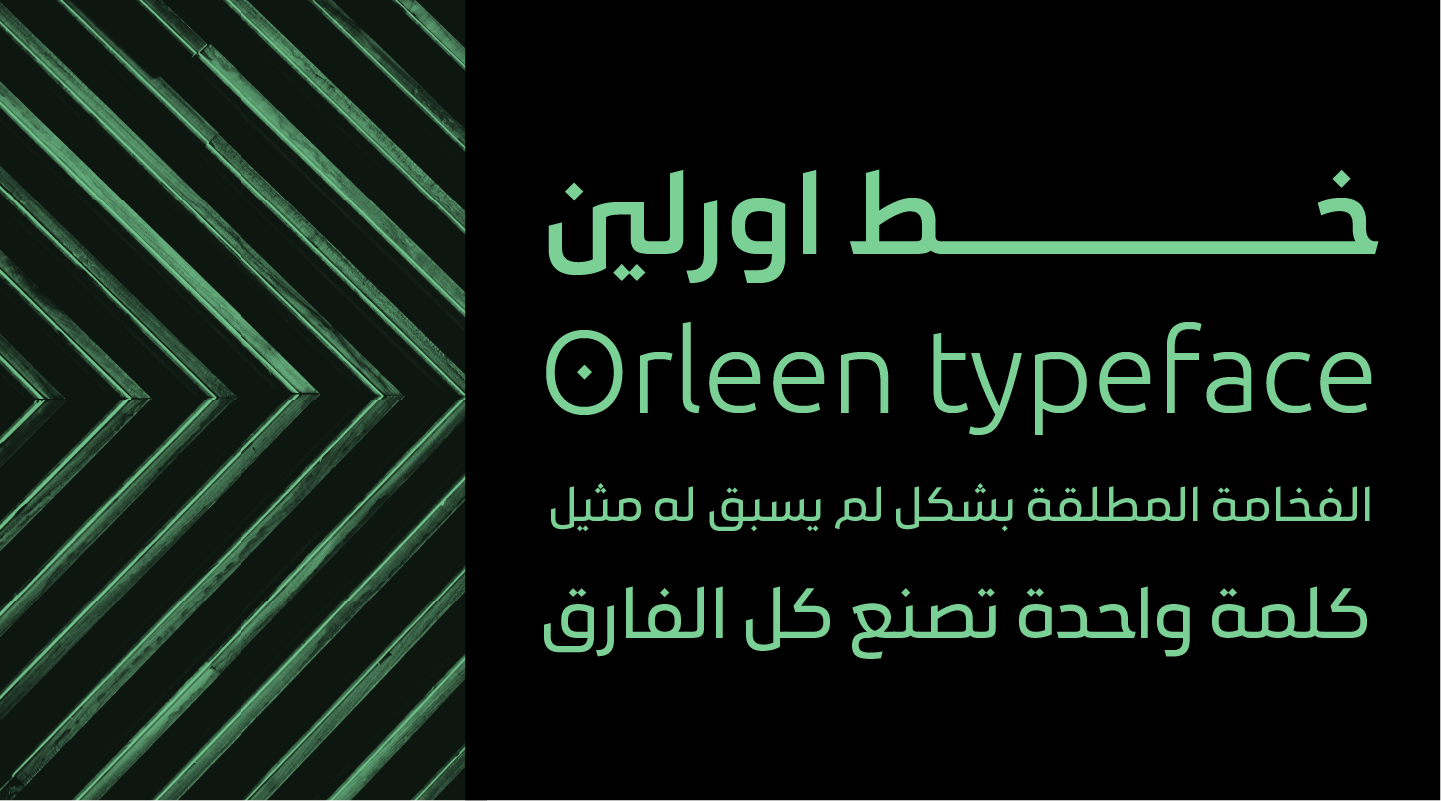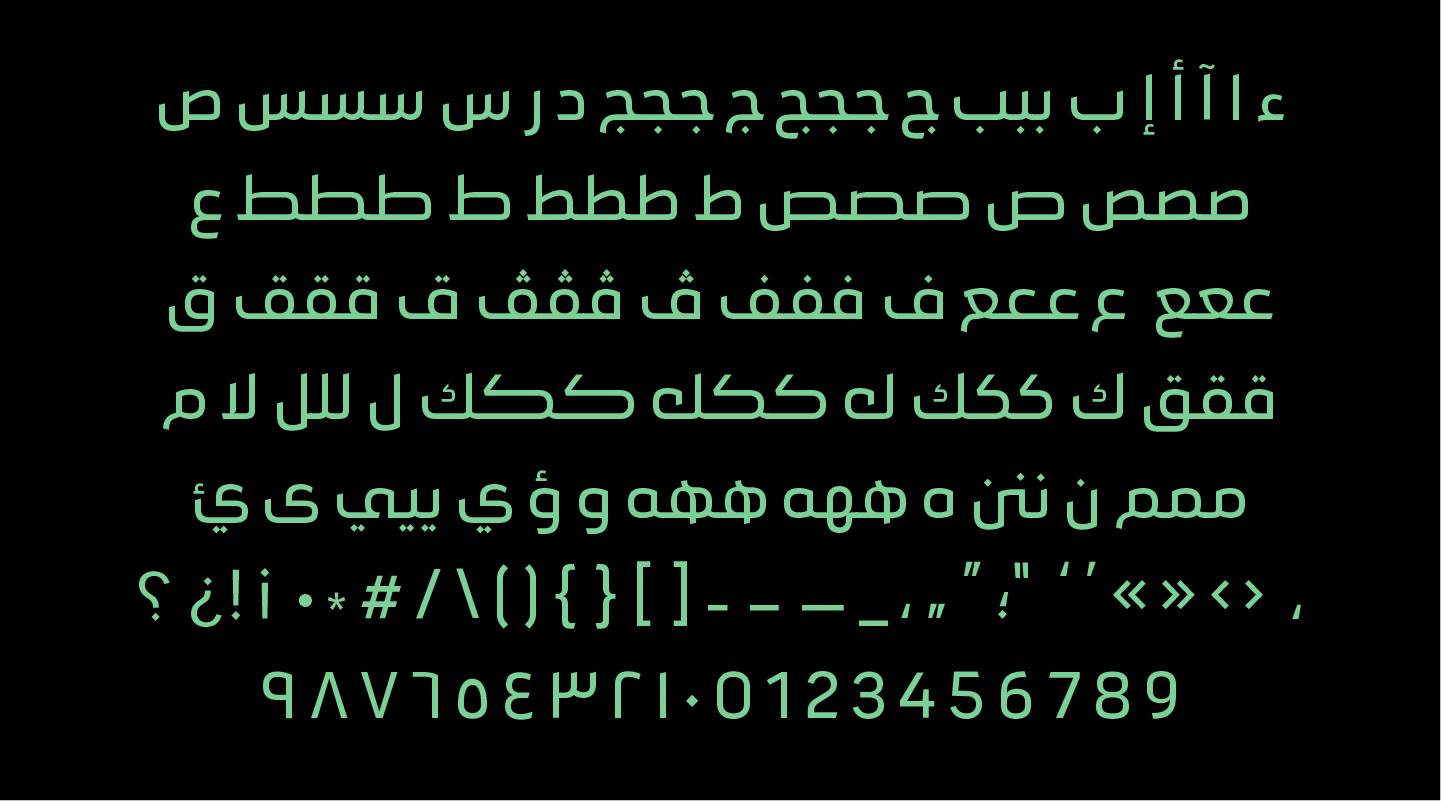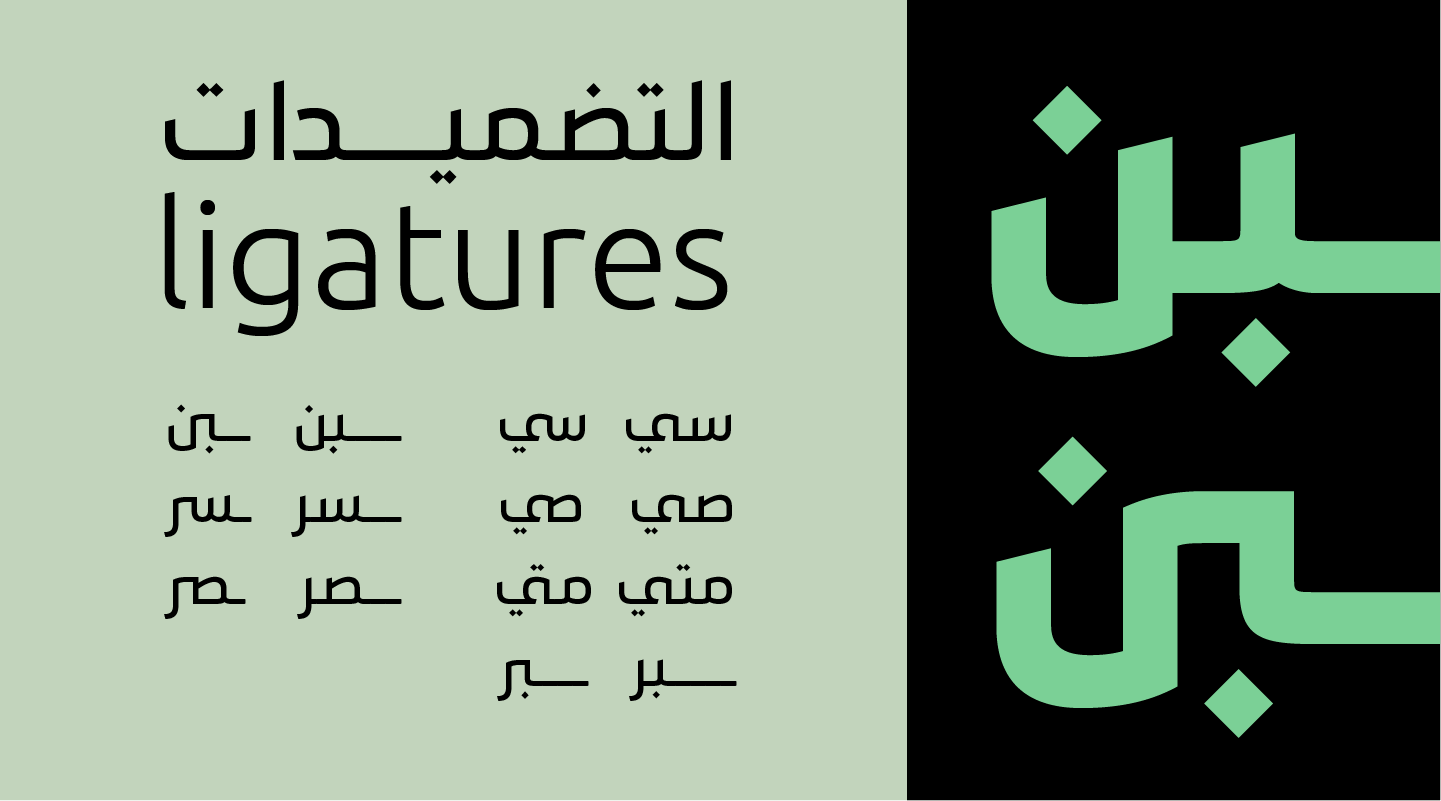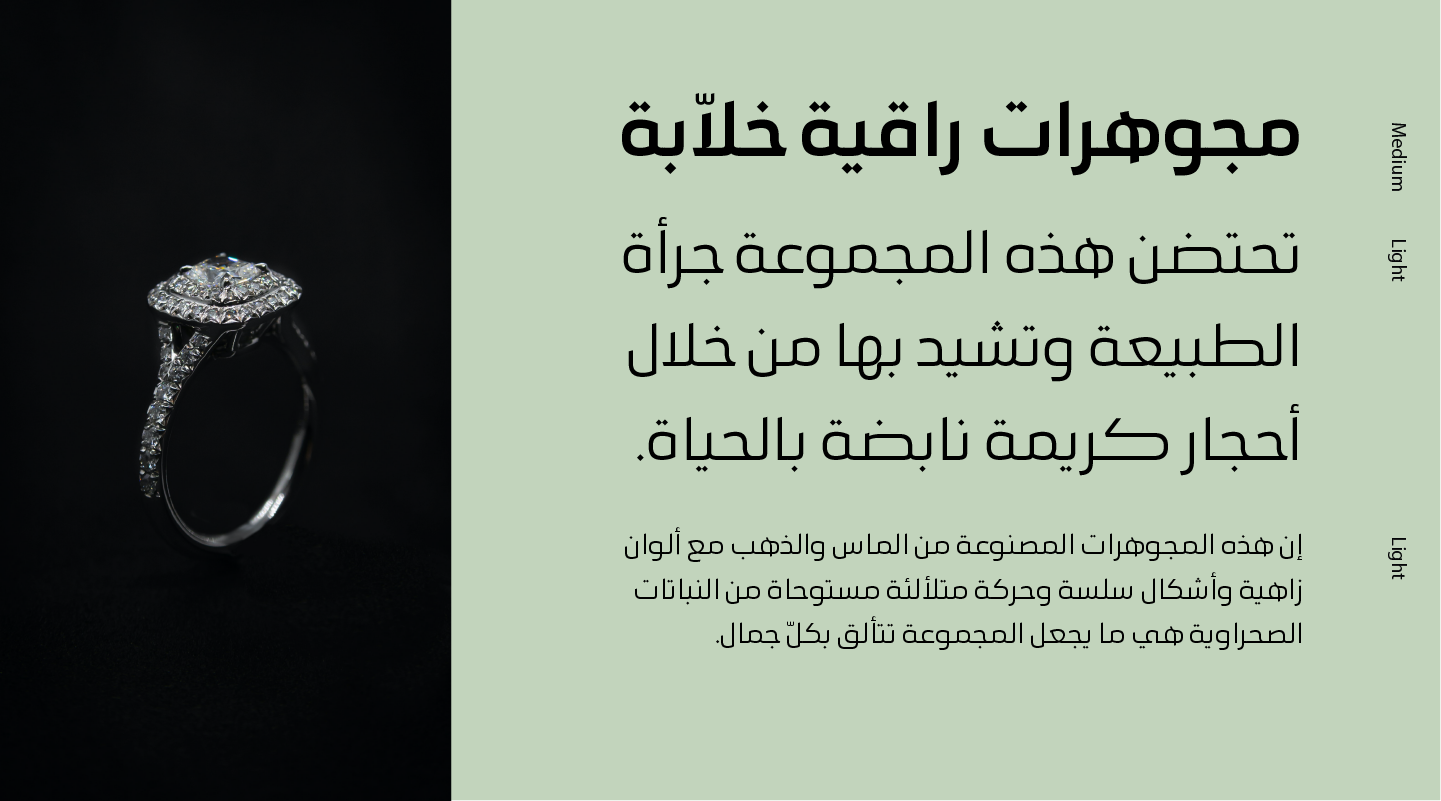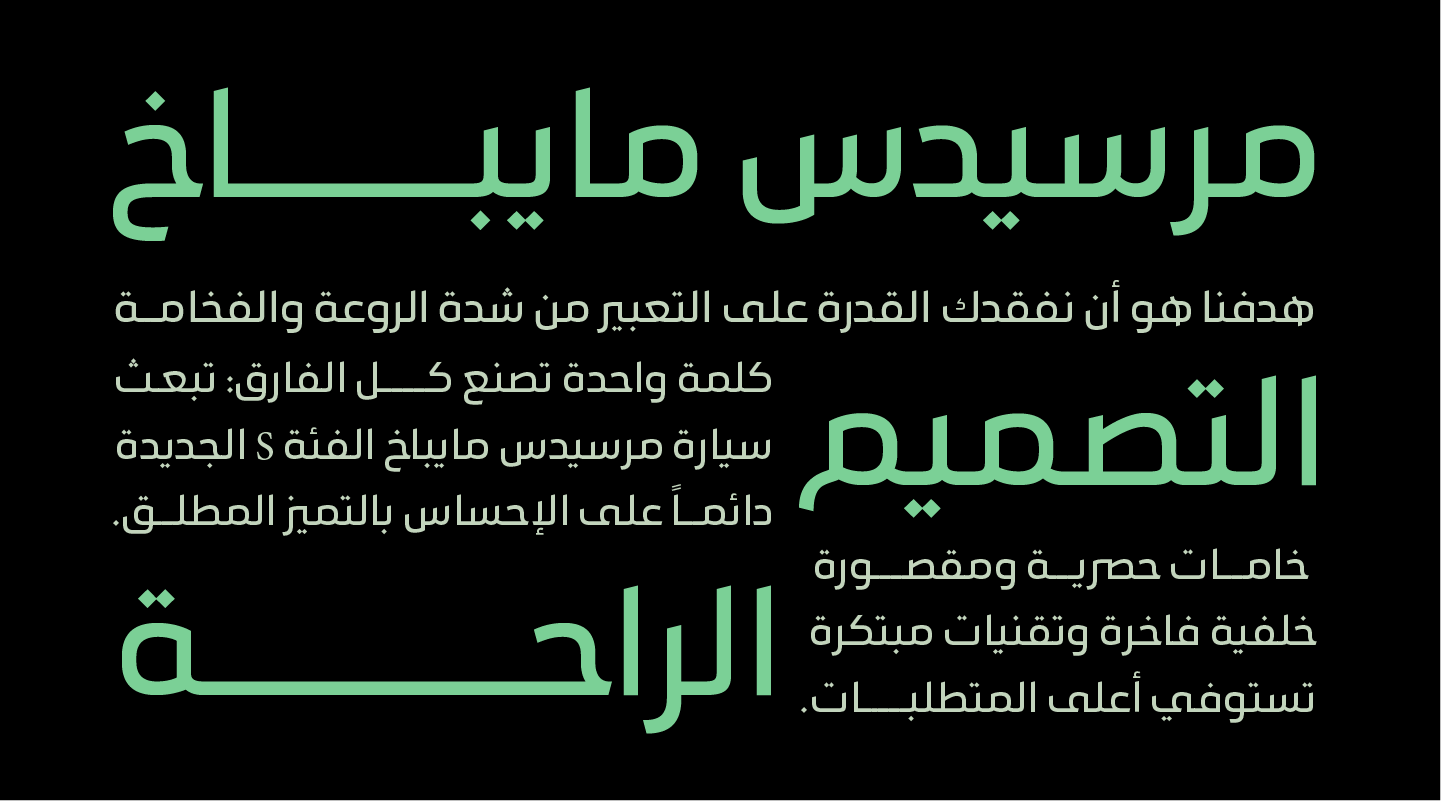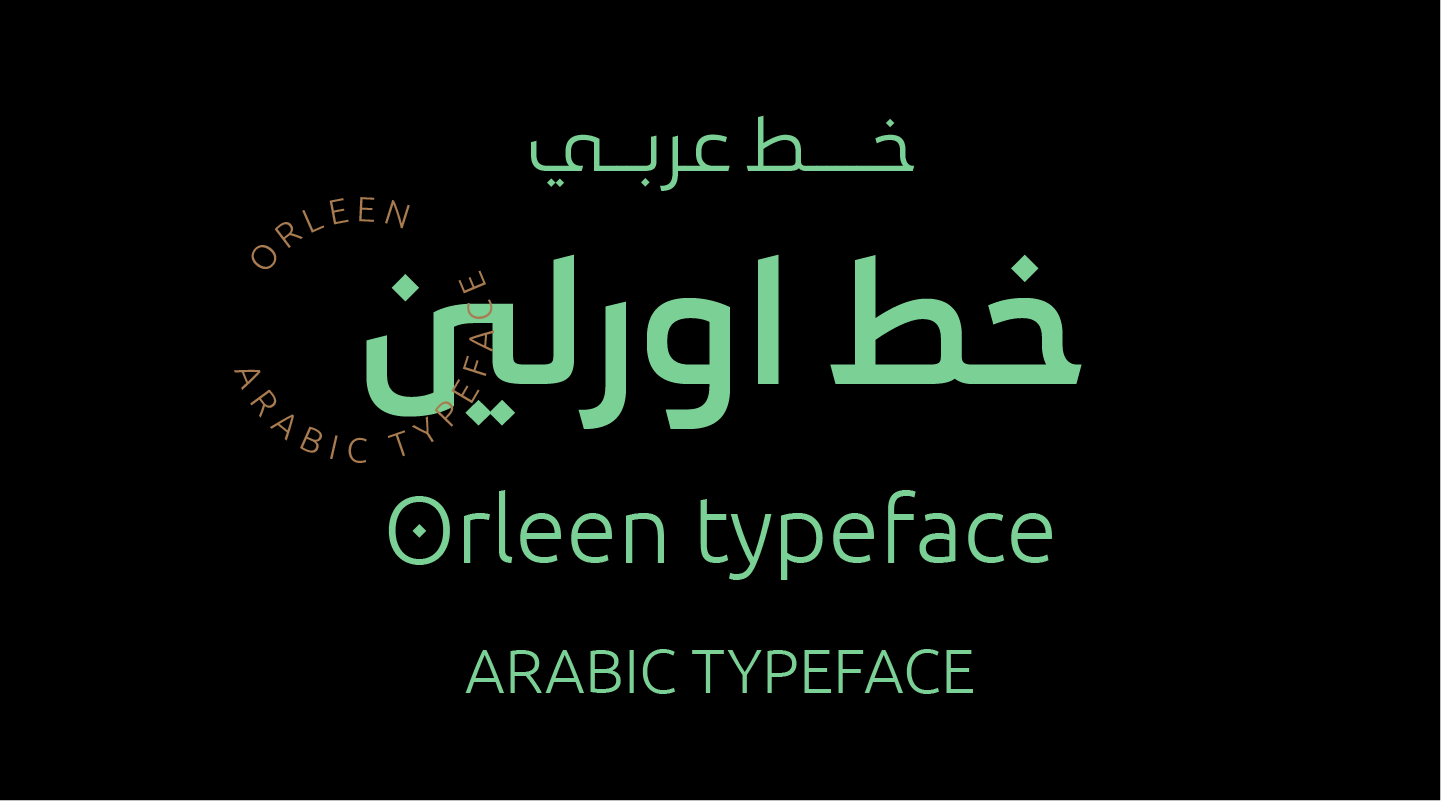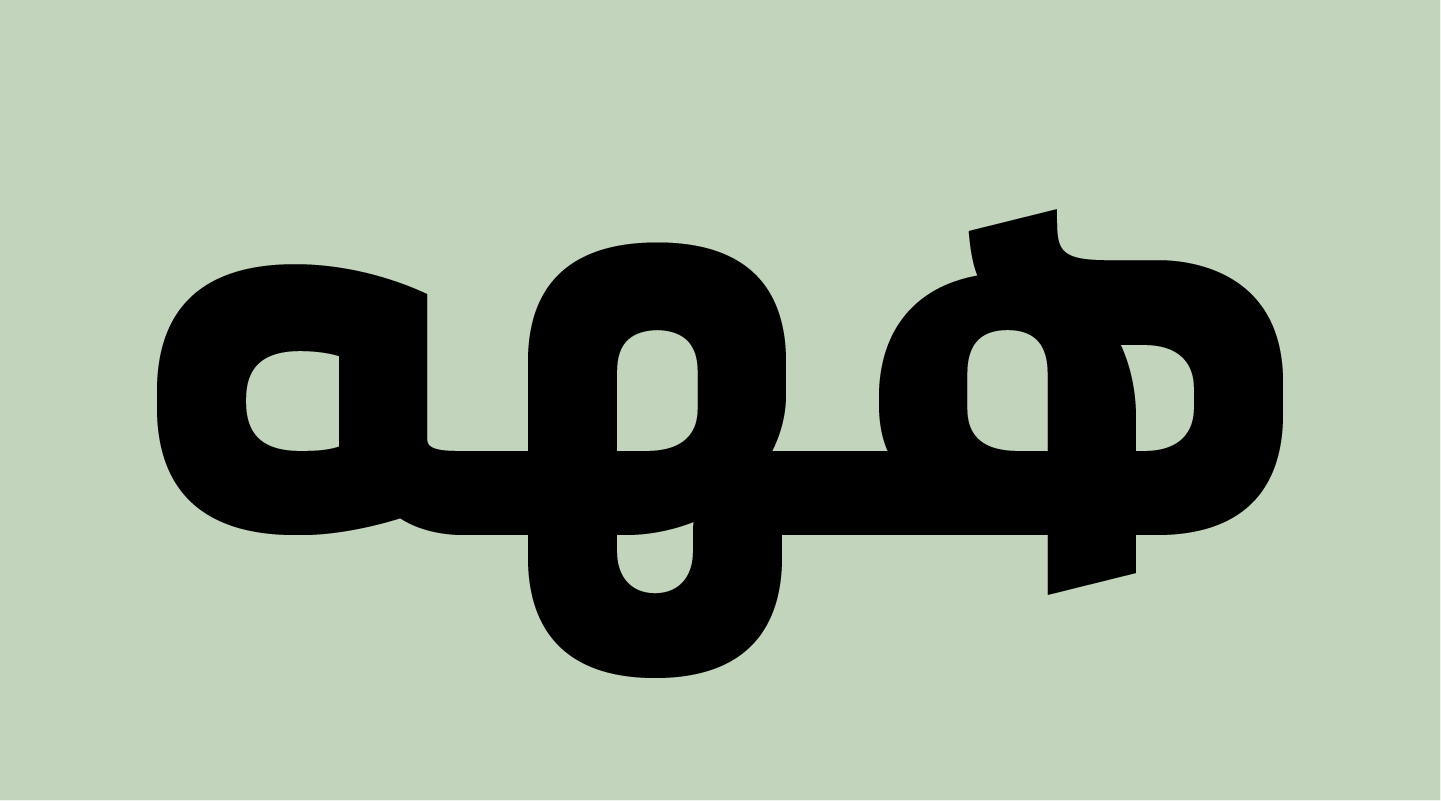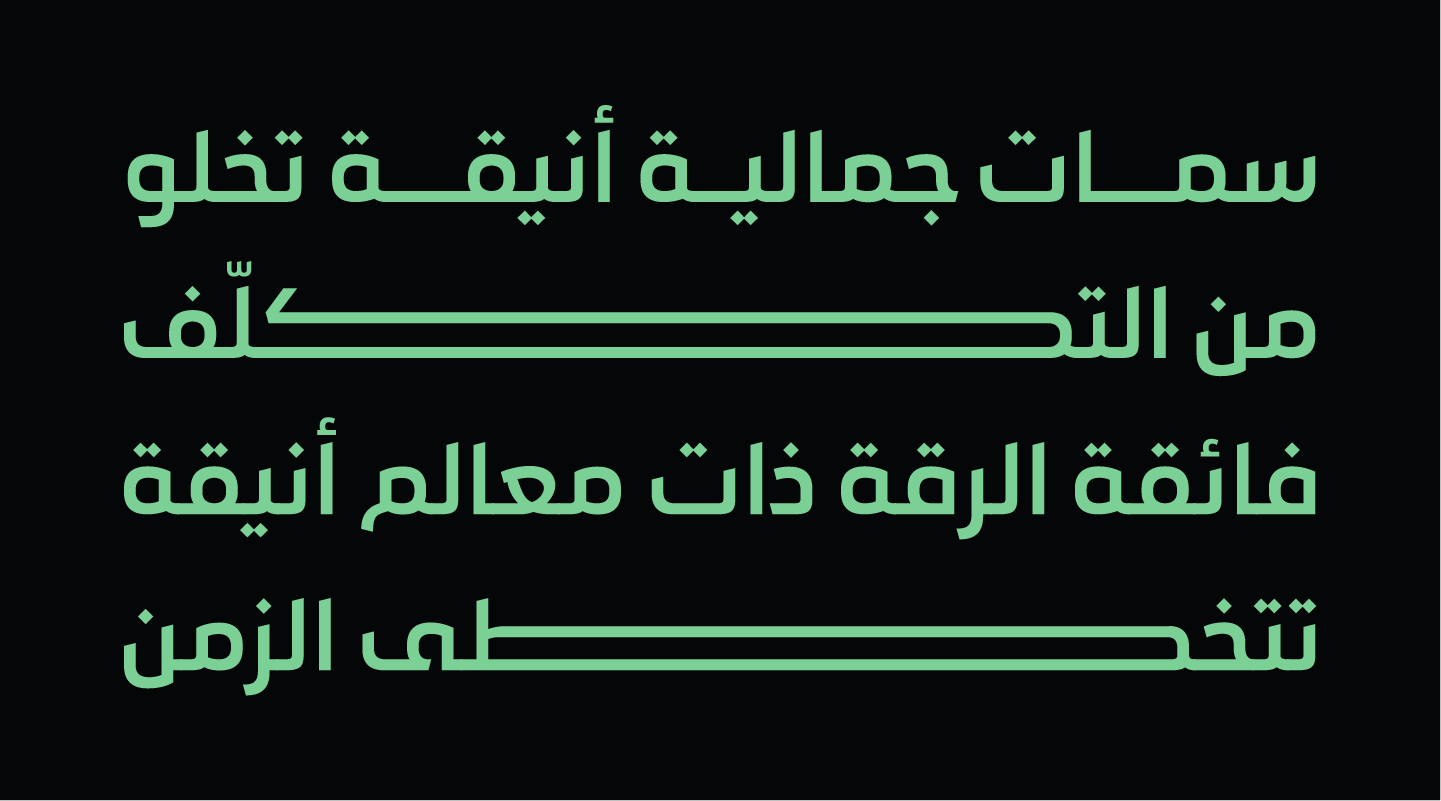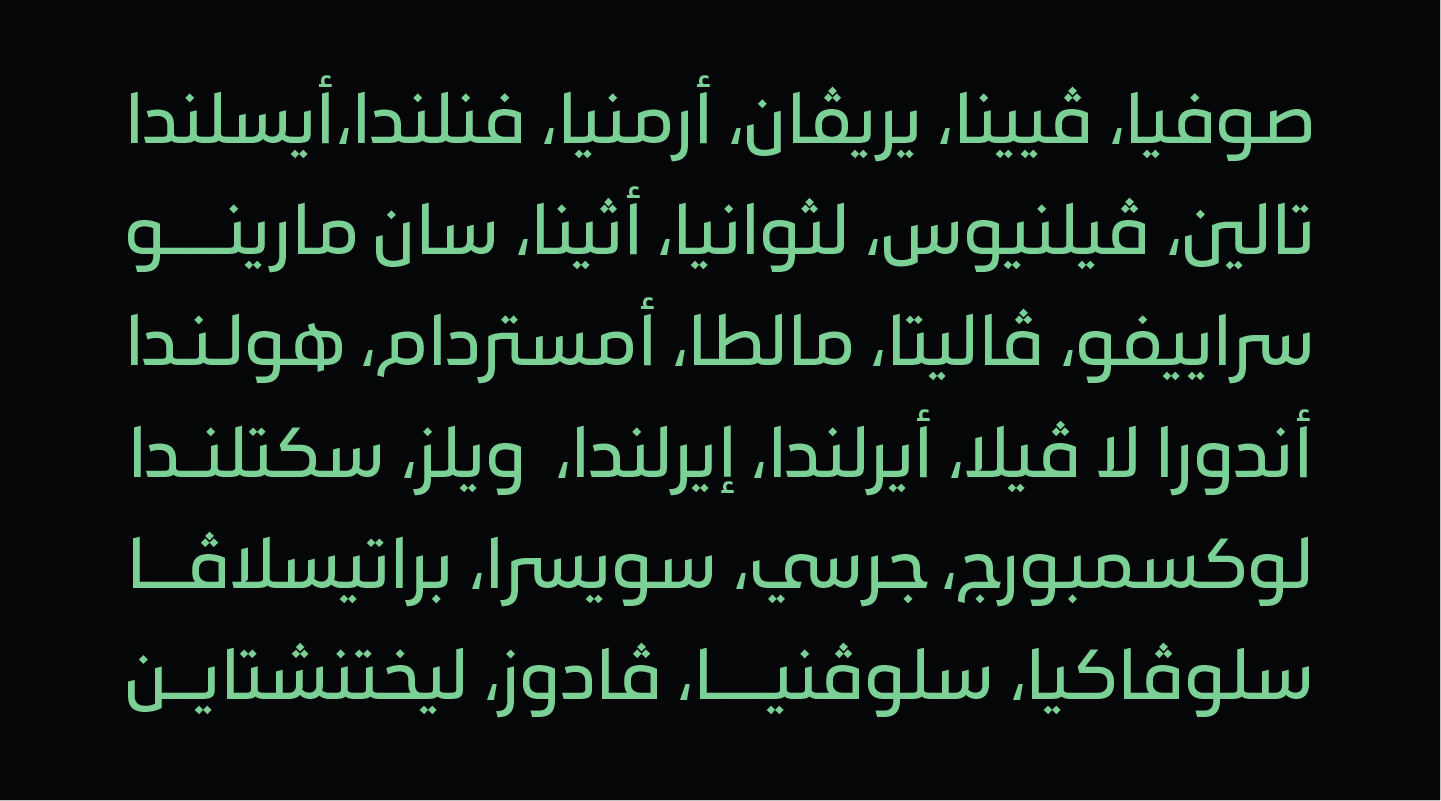
Orleen is an Arabic typeface from Lina type family, with an elegant and modern feeling. It's luxurious, strong, legible, Clear, Simple, and contemporary. With a handful set of OpenType features and alternatives.
The design is inspired by the Kufic calligraphic style and influenced by the Naskh style.
Lina type family consists of Lina soft, Lina sans, Lina round. and Orleen
Orleen has a wide range of use possibilities headlines, logotypes, branding, books, magazines, motion graphics, and use on the web and Tv.
Orleen consists of 7-weight versions from thin to bold.
Type design Ahmad zaza
Type engineering Mohammed Elganzouri